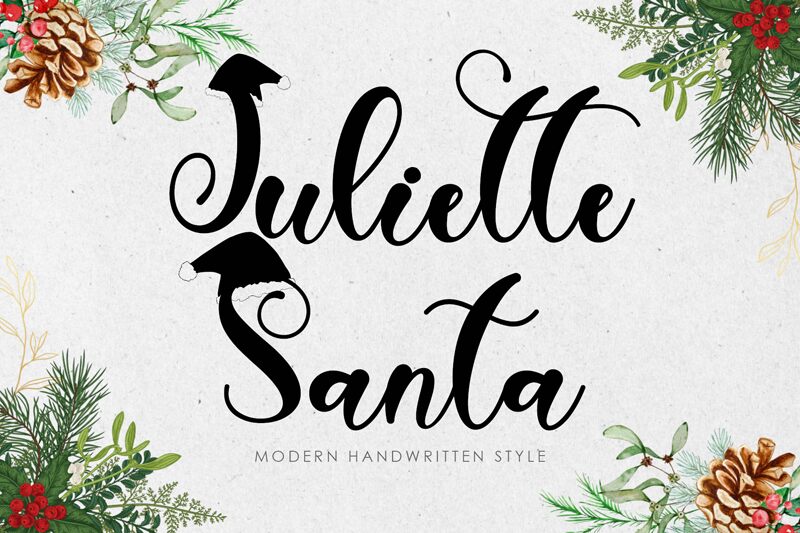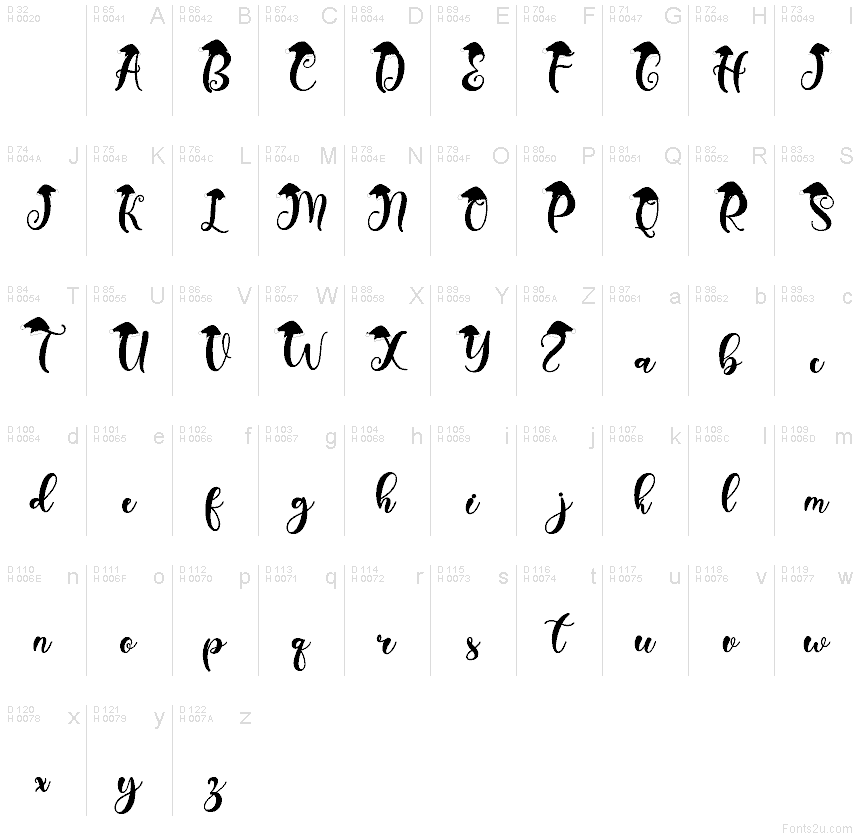
Juliette Santa
Juliette Santa font by Yoga Letter is a free holiday script typeface that bottles up the cozy chaos of Christmas. Its inky, hand-brushed curves sway like ribbon, while the whimsical Santa hats perched on key letters instantly signal festive cheer. The strokes feel warm and slightly textured, as if written with a real brush pen on a gift tag, giving your layouts a handmade, storybook kind of charm.
Using Juliette Santa, you can bring that snug holiday feeling to greeting cards, party invitations, gift labels, social posts, advent calendars, and seasonal branding. This free font shines at larger sizes where the sweeping forms and playful hats can really breathe. Pair it with a clean sans serif for body text, and you’ve got a simple, reliable recipe for cheerful Christmas designs.